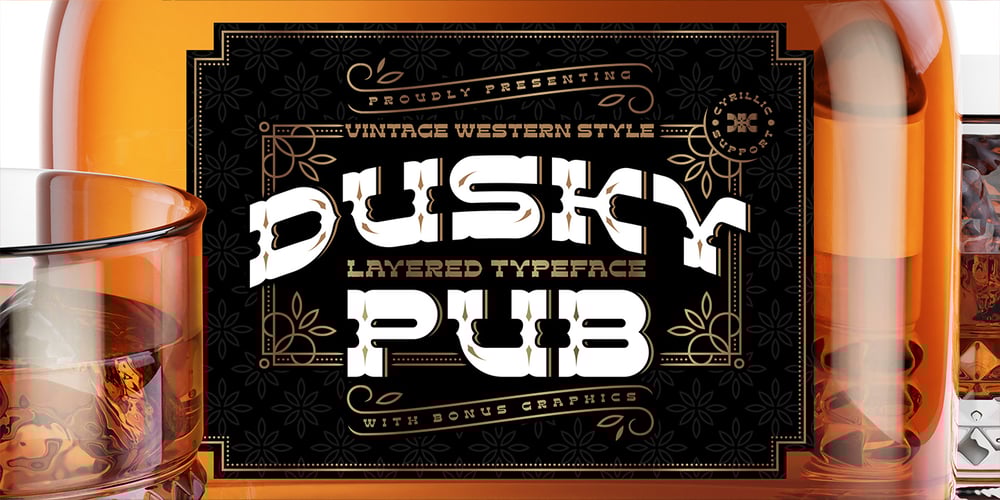
Dusky Pub
Dusky Pub font
Dusky Pub Font Family was designed by Gleb Guralnyk and published by Gleb Guralnyk. Dusky Pub contains 3 styles and family package options. Introducing a vintage typeface named Dusky Pub. It’s a layered font set made in classic western style. Bold shape with slab serifs makes it perfect for various labels and product designs. Wide range of languages support is available, including west european and cyrillic characters.